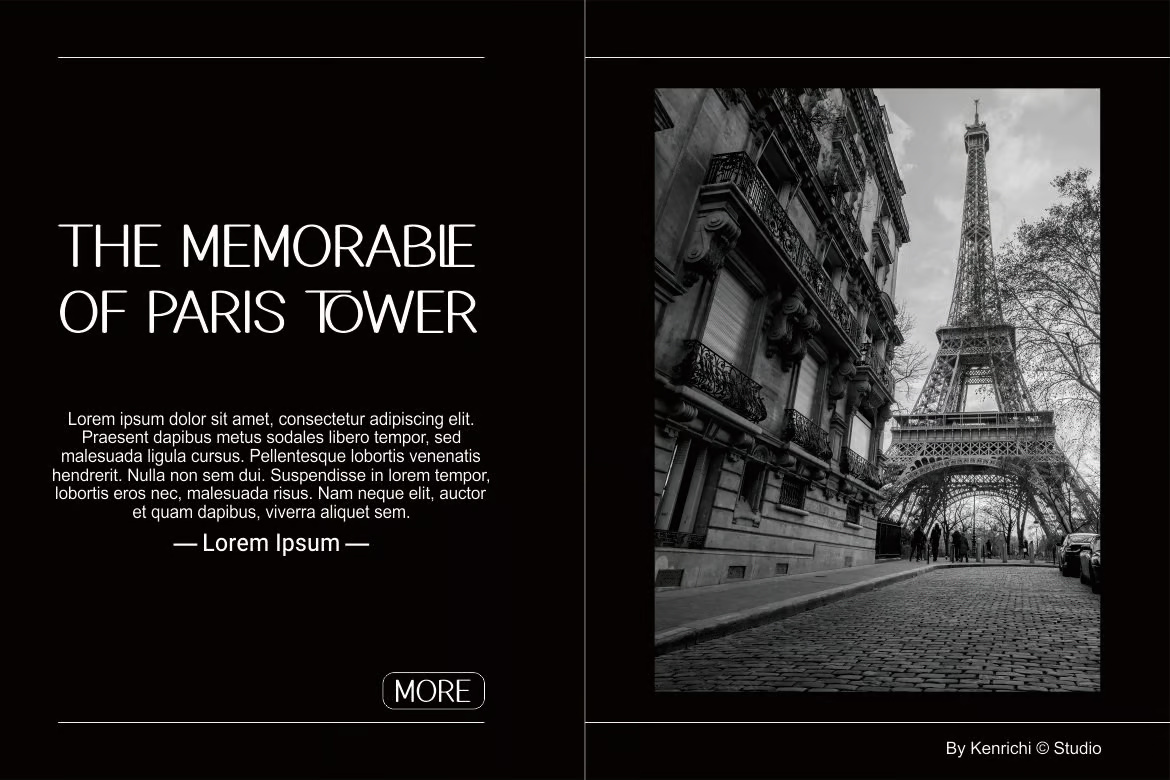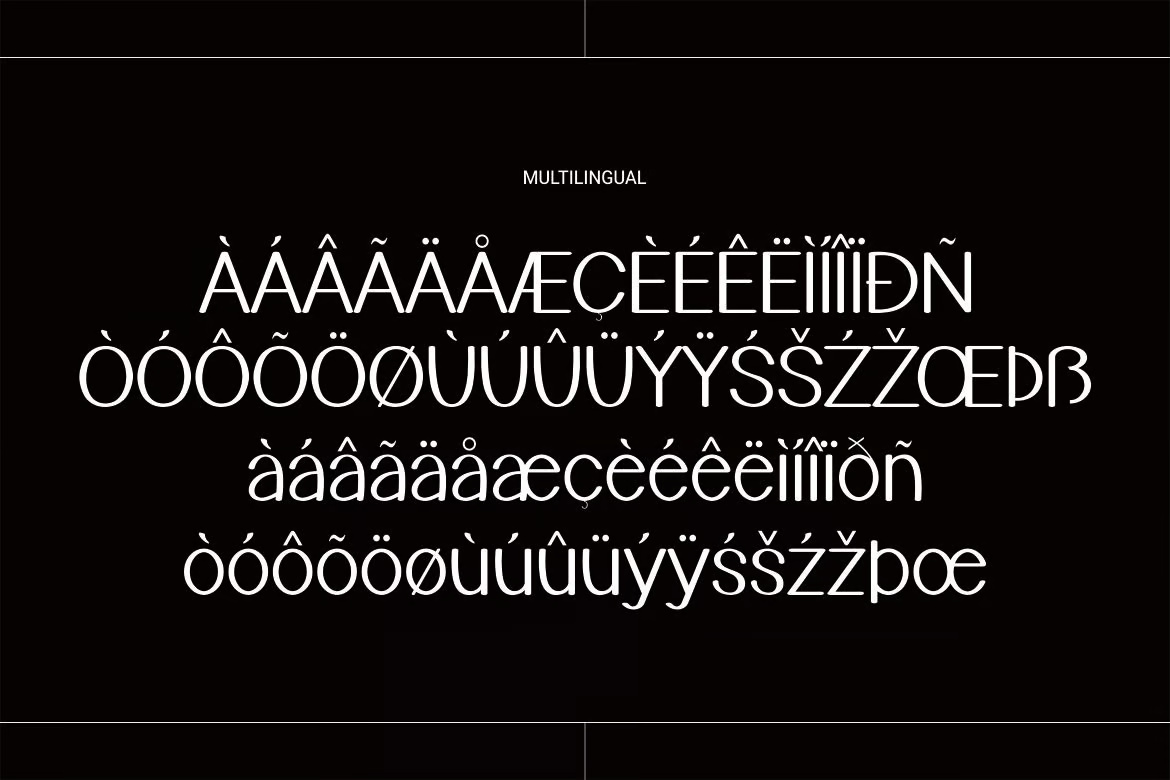
Bonica Font
Bonica Font is a modern and authentic typeface designed to elevate your branding and creative projects. Its versatility makes it perfect for various applications, including quotes, logos, blog headers, posters, invitations, stationery, and more. Whether for professional use or personal branding, Bonica Font stands out in a wide range of contexts, adding a touch of elegance and uniqueness to any design.
Bonica Sans-Serif Font